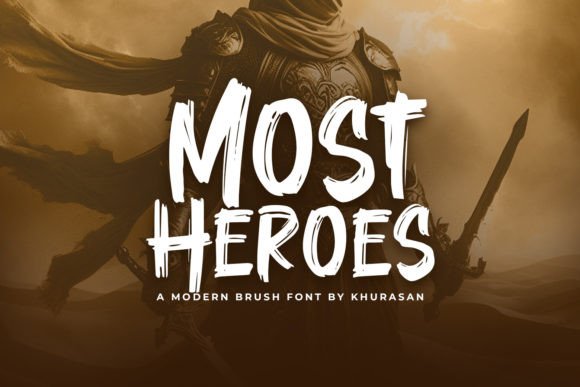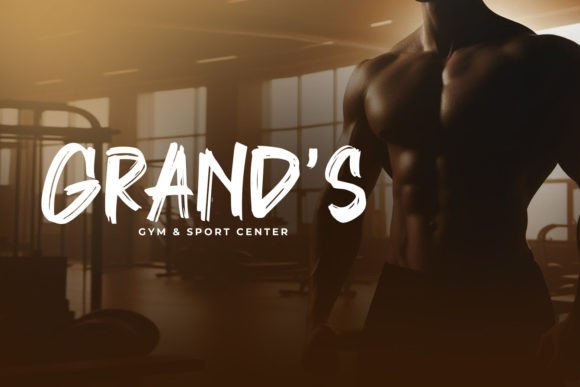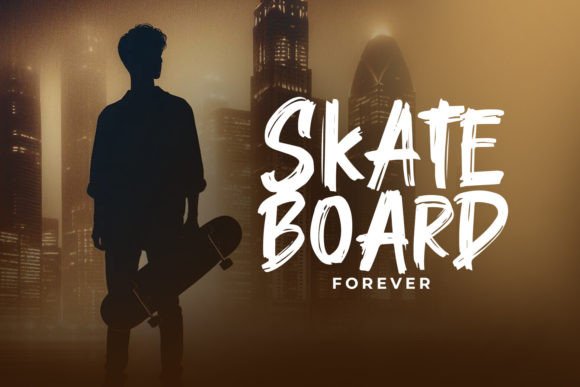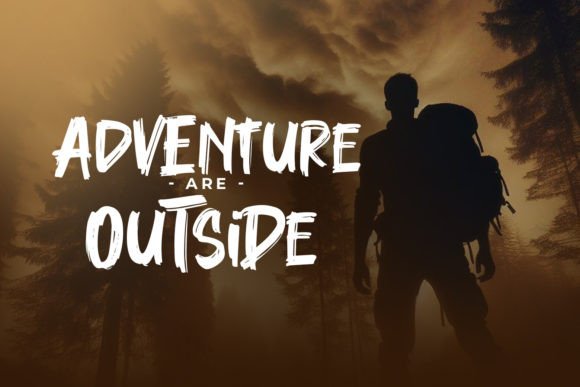
Most Heroes Font: Bold Brush Script for Logos & Branding
About the Most Heroes Font
Introducing the Most Heroes Font, a beautifully crafted typeface designed to elevate your creative projects. Most Heroes is a modern brush font perfect for posters, logos, magazines, book covers, banners, and many more! Get this quirky display font, and use it to create lovely designs! It can easily be matched to an incredibly large set of projects, so add it to your creative ideas and notice how it makes them stand out!
Most Heroes’ bold, slightly quirky personality makes it ideal for headlines, branding projects needing a touch of playful sophistication, and eye-catching posters. Its brush strokes lend themselves well to short, impactful text but are less suitable for body copy or UI elements where readability over long stretches is crucial.
Consider pairing Most Heroes with a clean sans-serif like Montserrat for a balanced contrast, or a classic serif such as Garamond for a more refined feel. For a more modern edge, a geometric sans-serif like Futura would create a striking juxtaposition.
Avoid using it for lengthy text blocks; its expressive nature can hinder readability in such contexts. The font is best utilized where its unique character can shine, making a statement rather than providing extensive information.
Most Heroes Font Usage Examples
Most Heroes Font Example